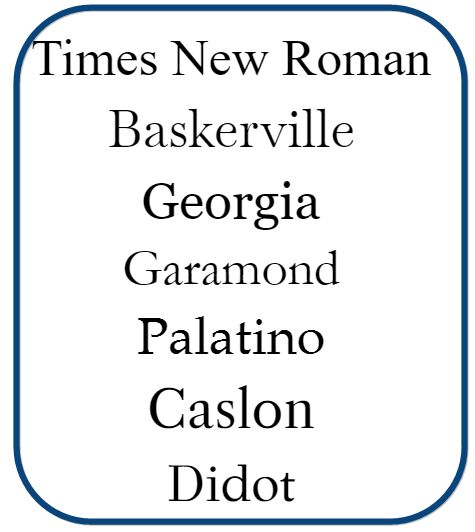
In the world of typography, the choice of font can make a considerable difference in the readability, aesthetic appeal, and overall impact of a piece of text. Especially when it comes to body text – the meat of any written content – the right font ensures clarity and a pleasant reading experience. Serif fonts, characterized by small lines or decorations attached to the end of a letter's main stroke, have traditionally been favored for body text because of their legibility and classic appeal. In this article, let’s explore some of the best serif fonts for body text and make your content easier to read.
What Are the Best Serif Fonts for Body Text?
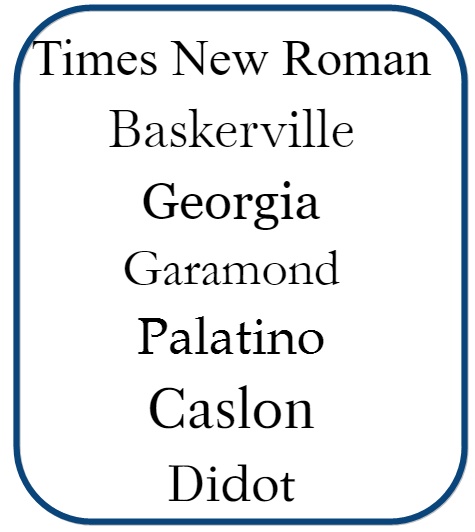
Times New Roman
Established in 1931 for London's renowned newspaper, The Times, Times New Roman was crafted by the British Monotype Corporation, with typographers Stanley Morison and Victor Lardent leading the design. Its mission was twofold: offer a refreshing typeface while maintaining high readability. The font's inclusion as Microsoft Word's default further cemented its place in global communication. Its very name captures the essence of its birth and the goal of rejuvenating older type styles.
Key Characteristics:
Times New Roman melds practicality with sophistication. Its defining attributes include:
- Stroke Contrast: A pronounced distinction between thick and thin lines gives it a crisp visual.
- Serifs: Its short, defined serifs enhance legibility, particularly in compact print.
- X-height: A balanced height of lowercase letters ensures textual harmony.
- Italics: Its italics are subtly inclined, providing a gentle variance from its regular form.
- Technical Aspects: The font boasts multiple weights, from light to bold, catering to various emphasis needs in text. Additionally, its kerning (space between characters) and leading (space between lines) are optimized for both print and digital readability.
Ideal for: Academic papers, newspapers, official documents, and any medium where universal accessibility is key.
Baskerville
A creation of John Baskerville in the mid-18th century, Baskerville was designed with the aim of refining traditional typefaces. It was renowned for its improved legibility and elegance to the printed page. Baskerville's design was a response to the transitional trends of its era, bridging the gap between old-style and modern typefaces.
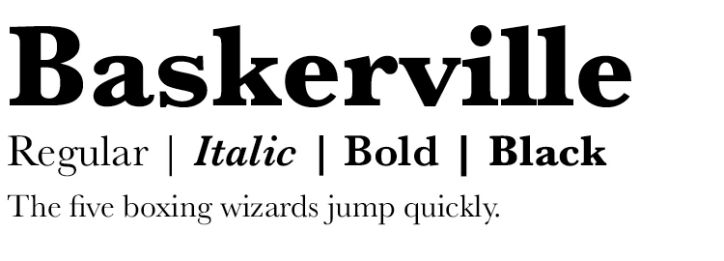
Key Characteristics:
- Stroke Contrast: Showcases clear contrast, which contributes to its elegant appearance.
- Serifs: Rounded and more open than its counterparts, aiding in legibility.
- X-height: Features a larger x-height, which allows for better readability at smaller sizes.
- Italics: Its italics are distinct and gracefully designed.
- Technical Aspects: Baskerville is known for its sharpness and fine detail, particularly in its higher weights. Its refined design ensures optimal legibility across various mediums.
Ideal for: Classical literature, upscale magazines, and elegant branding.
Georgia
Designed by Matthew Carter for Microsoft in 1993, Georgia was created with screen legibility as its core focus. Embracing traditional typeface design, Georgia successfully brings the best of print typography into the digital age, ensuring clarity on screen resolutions.
Key Characteristics:
- Stroke Contrast: Moderate contrast allows for good legibility even at smaller sizes.
- Serifs: Slightly flared and chunky serifs ensure clarity on digital screens.
- X-height: Georgia's x-height is tailored for digital legibility, ensuring text clarity on screens.
- Italics: Georgia's italic version has a fluid, distinct design setting it apart.
- Technical Aspects: Developed primarily for digital use, Georgia has wide character spacing and a robust design to appear clear on various digital platforms, even at smaller sizes.
Ideal for: Web content, e-books, and any digital platform where clarity and traditional aesthetics are sought.
Garamond
One of the oldest fonts, Garamond traces its origins back to the 16th-century designs of Claude Garamond. Renowned for its timeless elegance and efficient use of space, Garamond is often chosen for its aesthetic appeal and cost-effectiveness in print.
Key Characteristics:
- Stroke Contrast: Gentle contrast gives it a warm, inviting feel.
- Serifs: Short, rounded serifs that don't detract from legibility.
- X-height: Moderate x-height that contributes to its classic aesthetic.
- Italics: Notably elegant and fluid, adding a touch of class to the text.
- Technical Aspects: Garamond's design allows for more characters per line than many other fonts of the same size, making it a cost-effective choice for printing.
Ideal for: Book publishing, upscale branding, and any medium seeking a touch of classical elegance.
Palatino
Developed by Hermann Zapf in 1948, Palatino was named after the 16th-century Italian master of calligraphy, Giambattista Palatino. It was crafted with a nod to the Renaissance and quickly became one of the most widely used fonts of the 20th century.